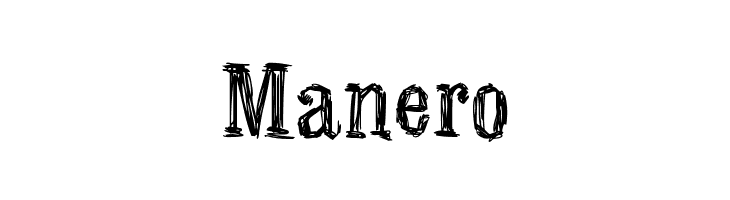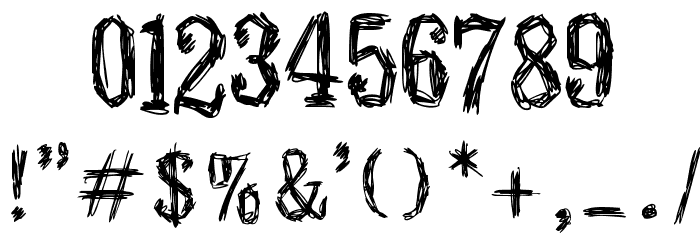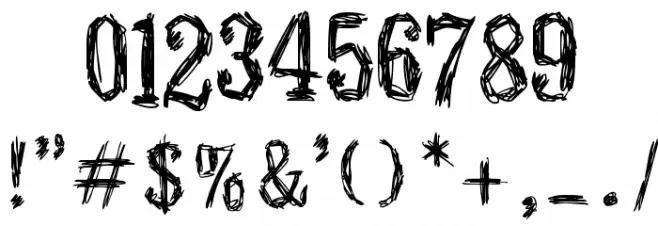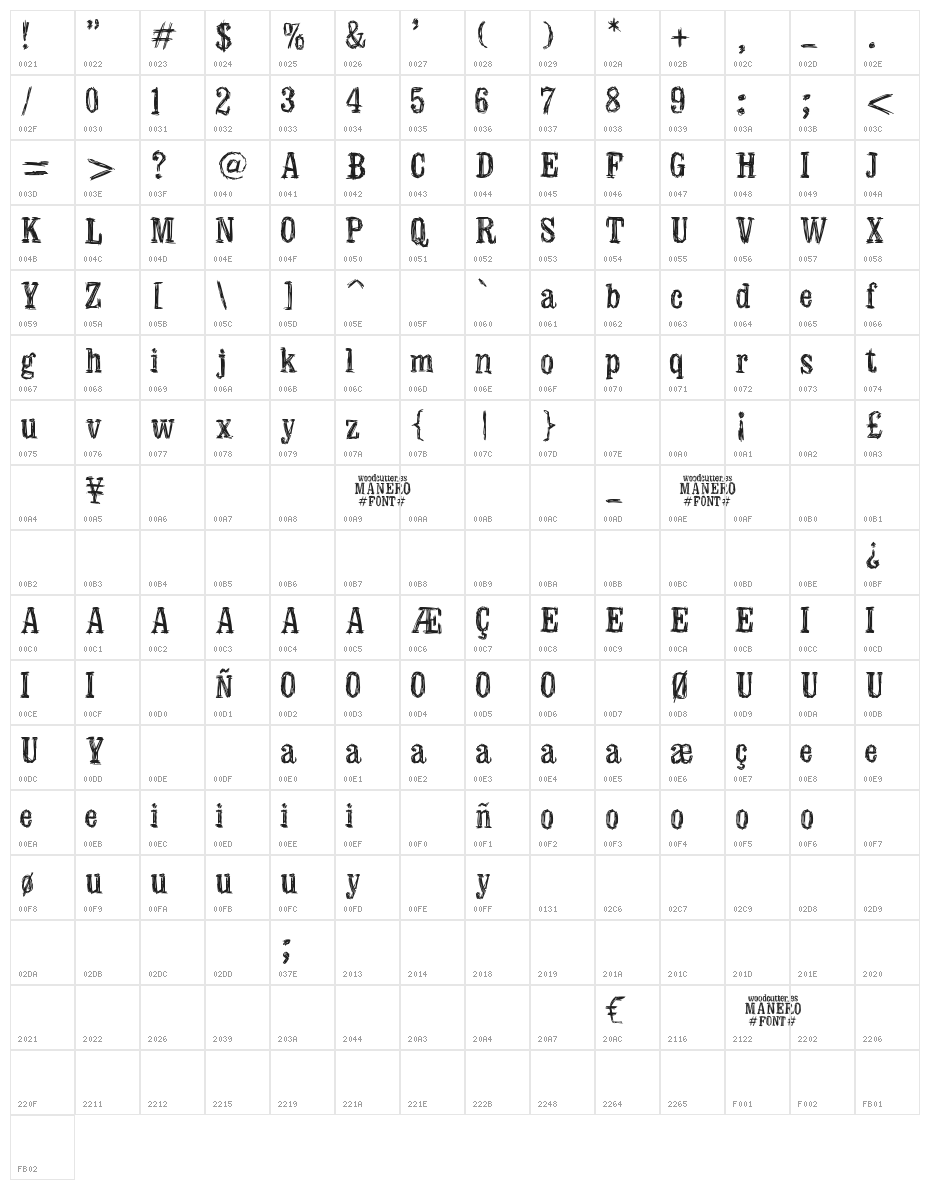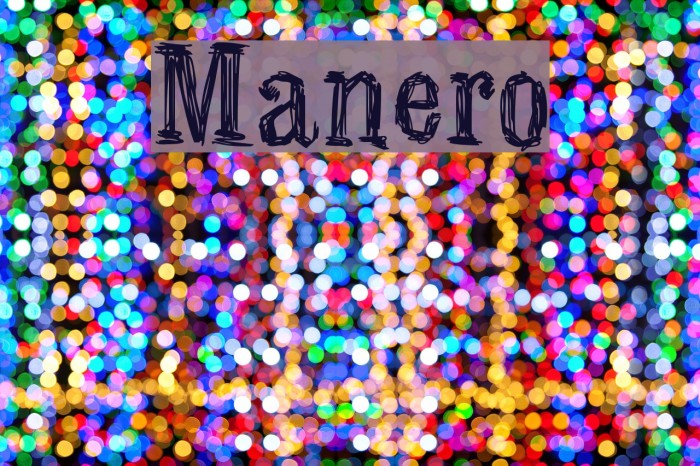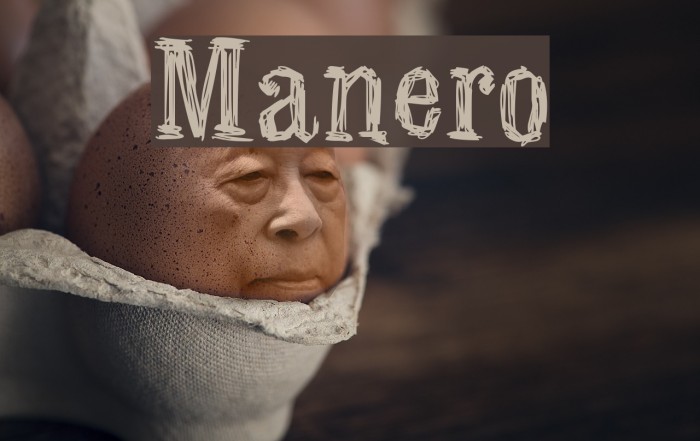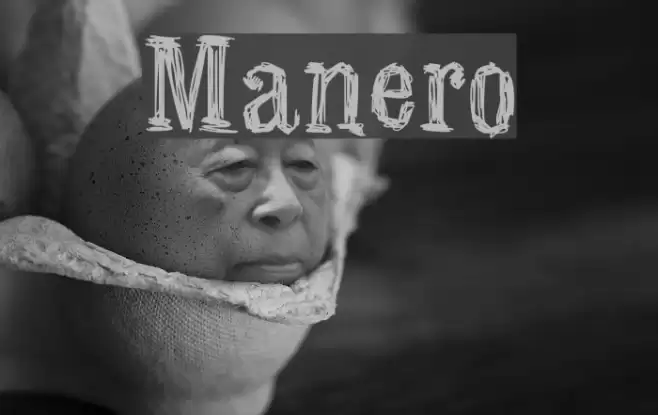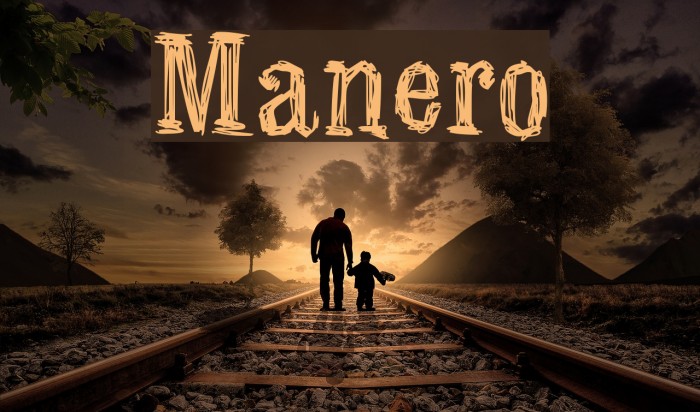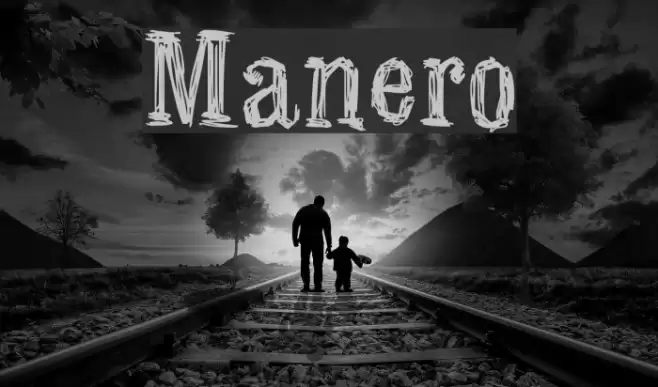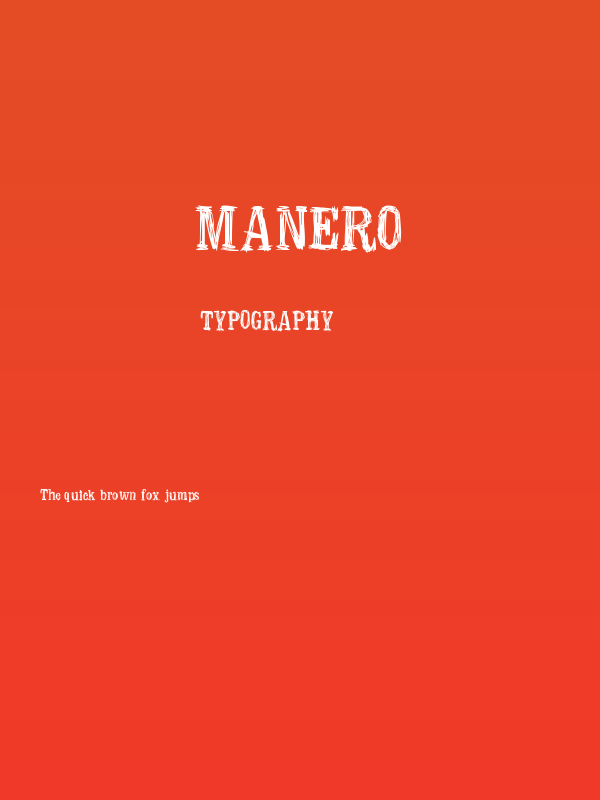
Manero Font
Manero Description
This font features a highly decorative and sketch-like appearance, with each character appearing as if it has been hand-drawn with a rough, textured stroke. The letters have a playful and artistic vibe, with uneven lines and a slightly chaotic structure that adds to its charm. The uppercase and lowercase letters maintain a consistent style, while the numbers and special characters follow the same artistic theme. This font is ideal for projects that require a creative and informal touch, offering a unique and eye-catching aesthetic.